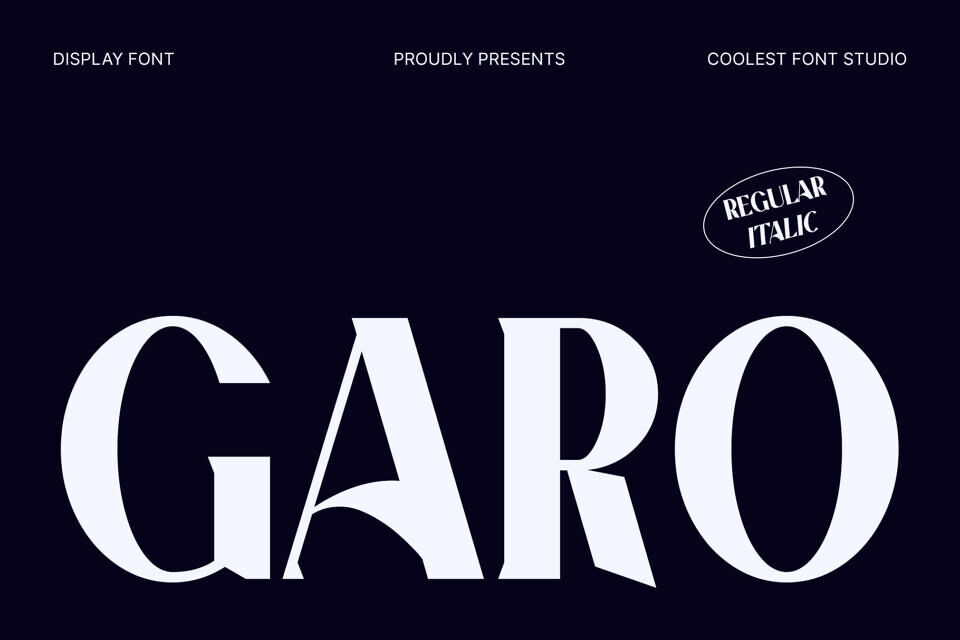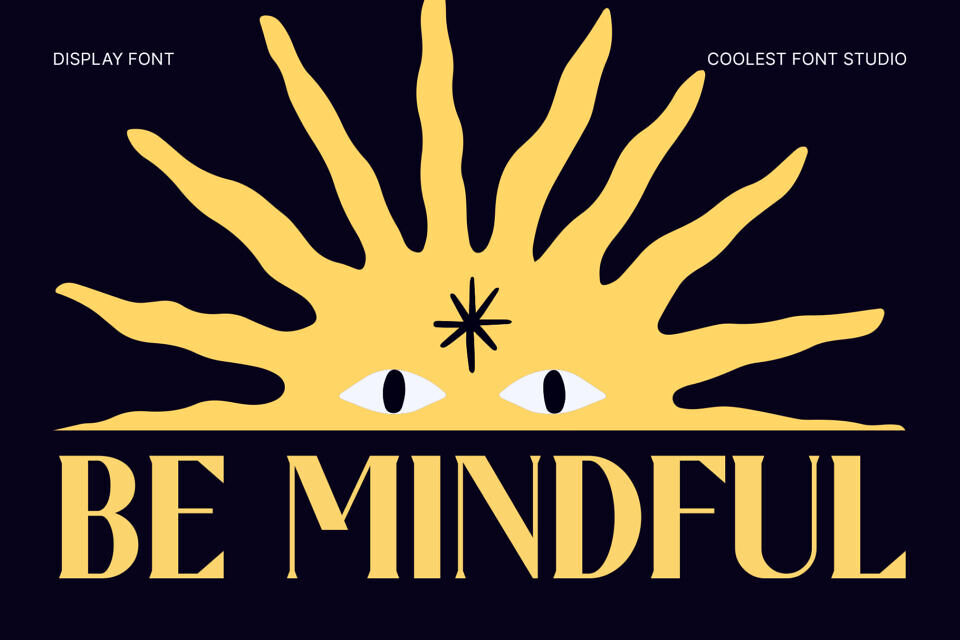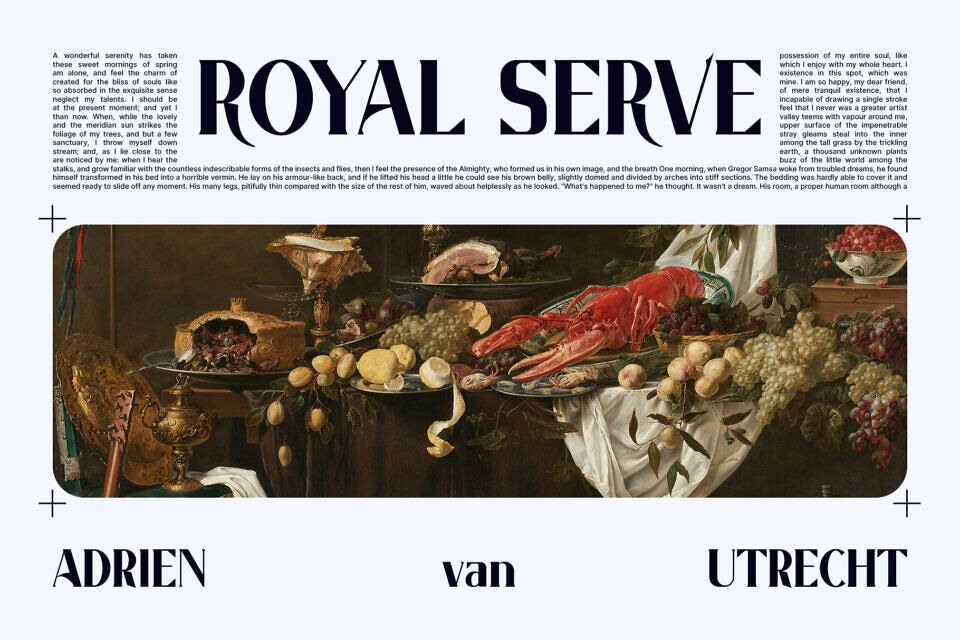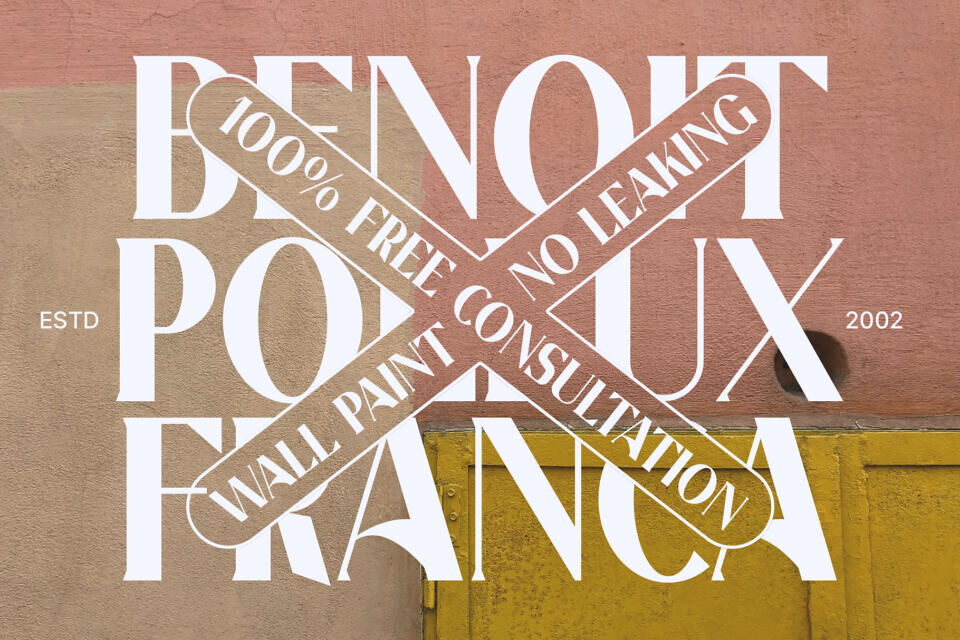
Garo is a bold and elegant serif font that blends timeless sophistication with modern charm. Designed with high contrast strokes, sharp serifs, and artistic ligatures, Garo is the perfect choice for designers looking to create luxury branding, classy editorial layouts, stylish logos, and premium packaging designs.
Each letter has been crafted with attention to detail, giving your text a professional yet unique personality. Whether you’re working on a fashion label, wedding invitation, or product packaging, Garo will elevate your design with style and confidence.